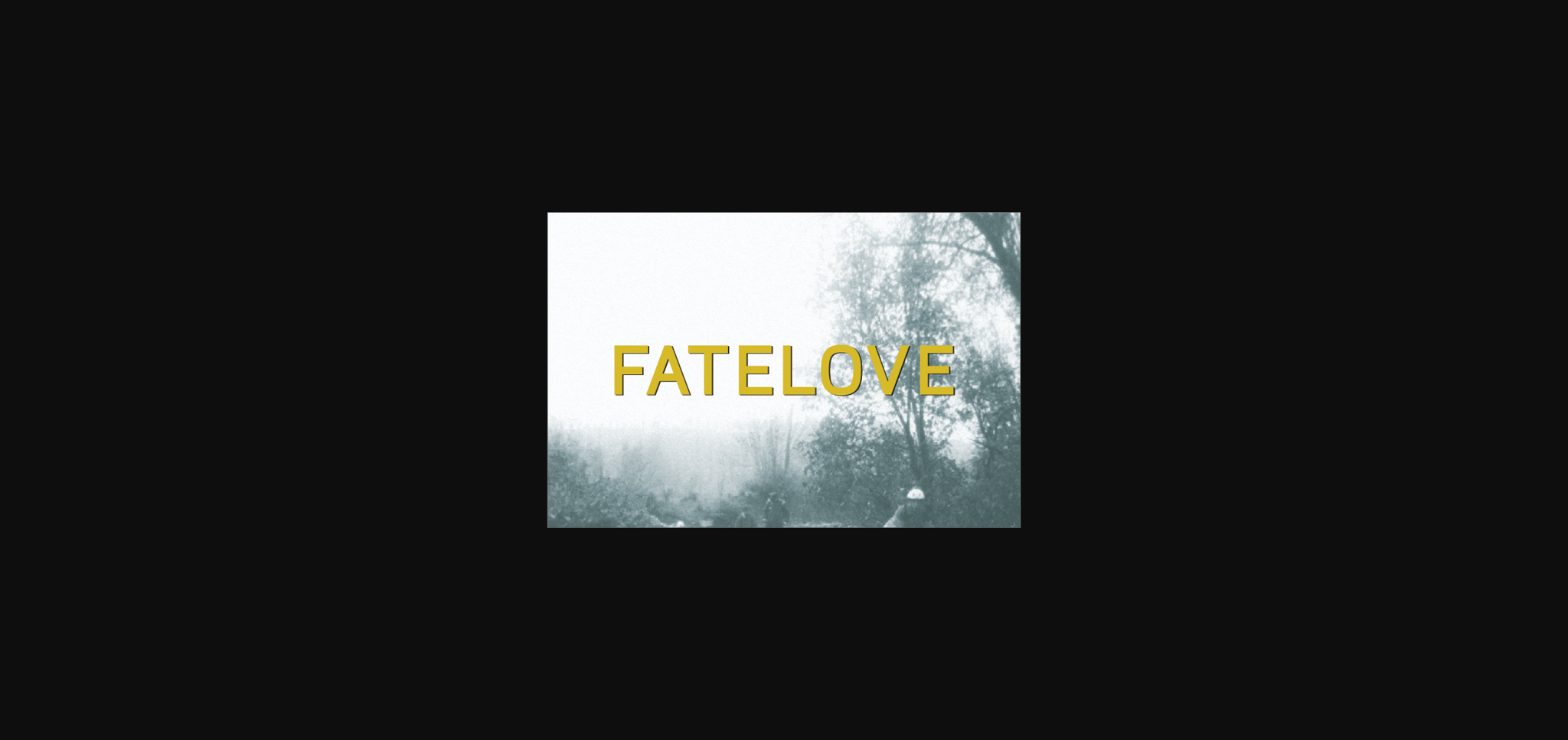
About Fatelove Font
Fatelove is a bold and authentic sans serif font. It can effortlessly fit an incredibly large set of projects, so add it to your creations and notice how it makes them stand out!